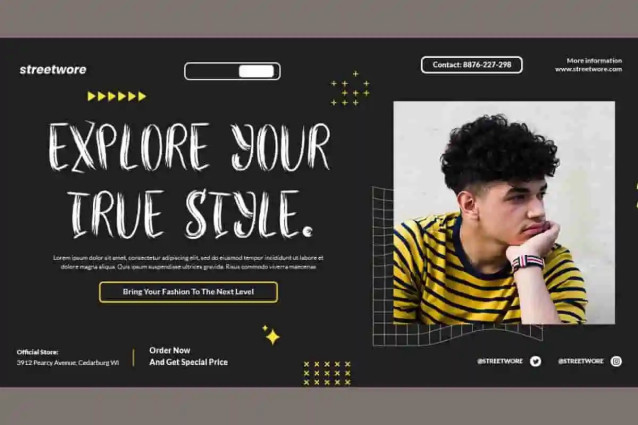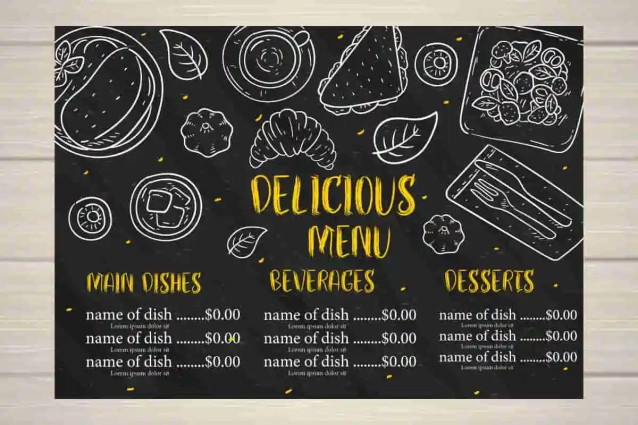
Draw Sketch Font
Draw Sketch Font is a cool textured brush font by calligraphyfonts.net. It will bring a cheer and playful look to any projects including kids brands, schools, magazine cover, doctors, playground, theme parks, and many others